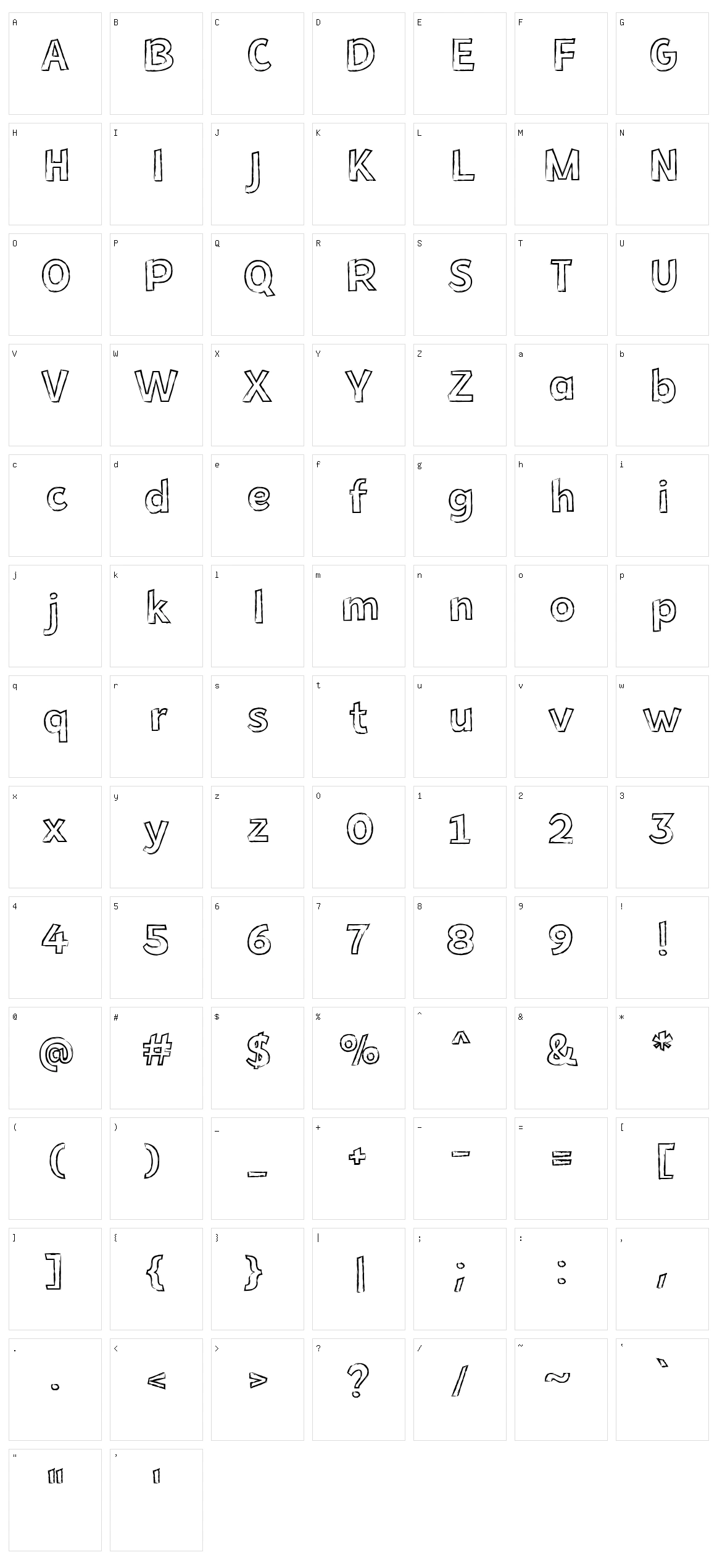
The free font Rough Edges is carefully designed by Misti's Fonts, showcasing a thoughtful balance of creativity and usability and falls under the Eroded font style. When you download the ZIP file, it contains only 424.33 KB of font files, making it lightweight and quick to download. Please review the license details below to understand permitted usage and distribution rights. If license information is not available, we recommend using this font for personal projects only or contacting the author directly for commercial usage permissions.